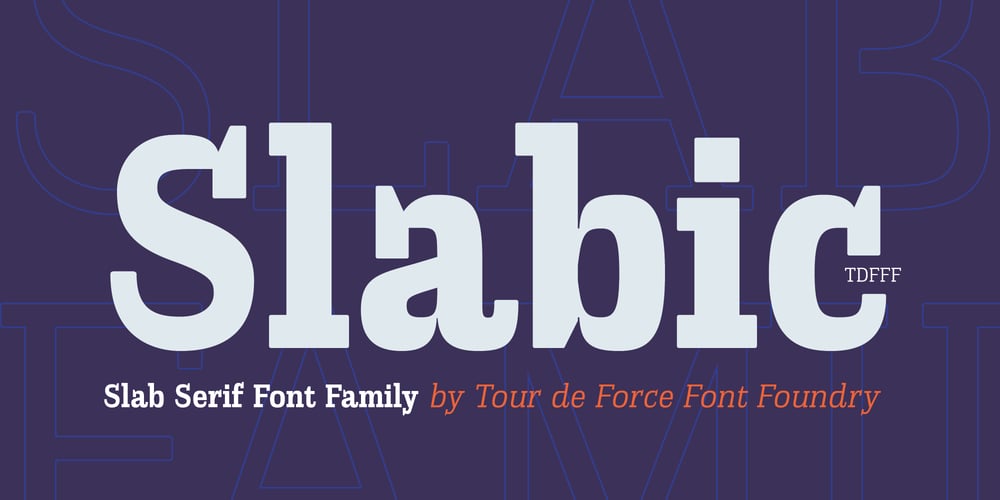
Slabic Font Family was designed by Dusan Jelesijevic and published by Tour De Force. Slabic contains 12 styles and family package options. Slabic is modern slab serif font family available in 12 styles.It’s main characteristics are gently rounded edges, unique serifs and ink traps. Looks and feels compact, harmonized and visually balanced, so readers flow don’t get interrupted during reading.Slabic recommends itself for editorial use or main body webfont, for logos, package design and posters.Slabic contains Small Caps, Fractions, Tabular and Old Style Numerals as Open Type features. Supports extended Latin character map.